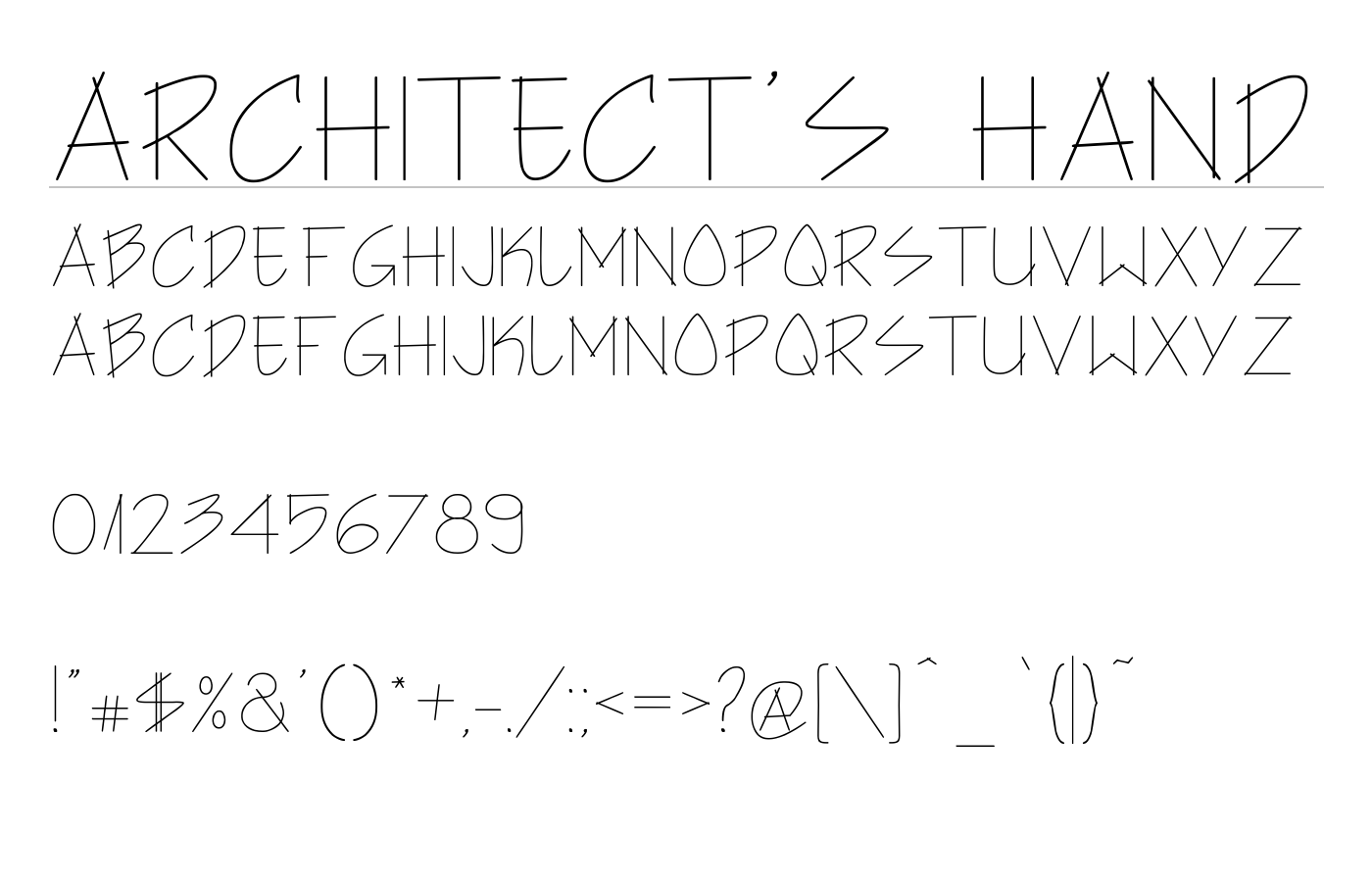
Architect's Hand is a light, narrow handwritten font that captures the precise, sketch-like quality of architectural drawings. Its tall, slender letterforms with minimal stroke contrast and irregular lines give it a technical yet personal feel, making it ideal for creative projects that want to combine professionalism with a human touch. This font works wonderfully for design presentations, architectural branding, or any context where a unique, informal style is needed.
Architect's Hand Font
Designed by Monotype Type Drawing Office - Robin Nicholas, Patricia Saunders 1982
About Architect's Hand Font
| Font family | Architect's Hand Font |
| Release date | 1990-08-06 |
| Designer | Monotype Type Drawing Office - Robin Nicholas, Patricia Saunders 1982 |